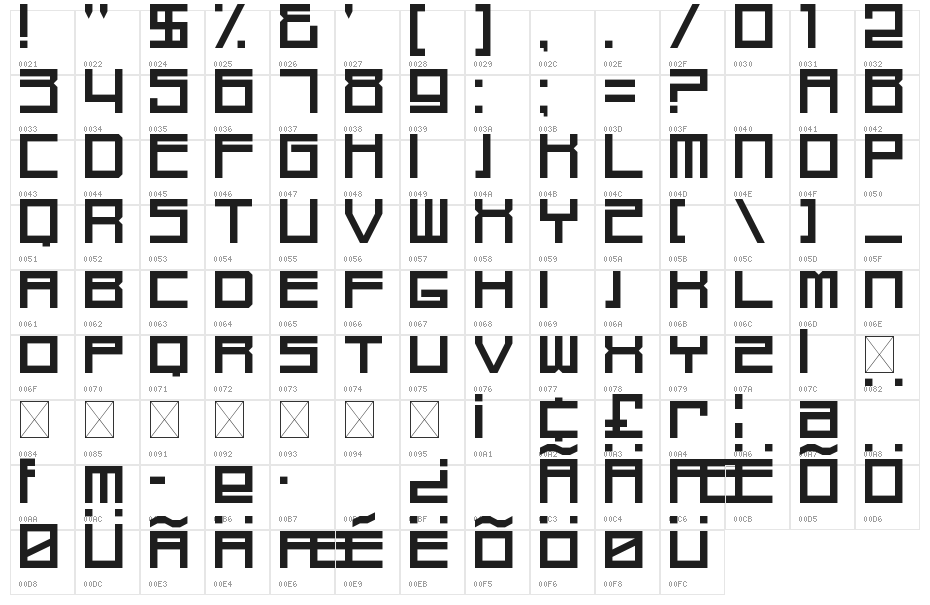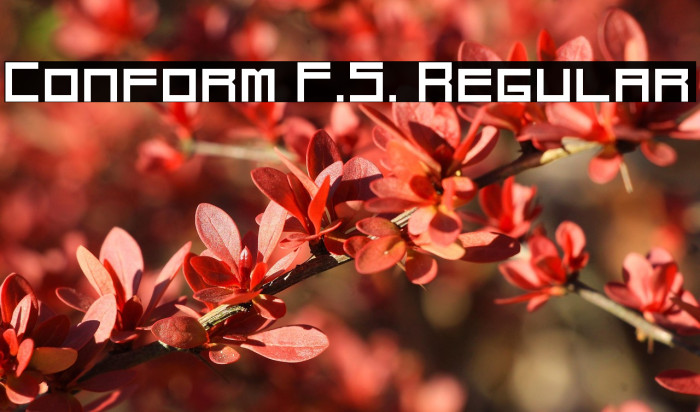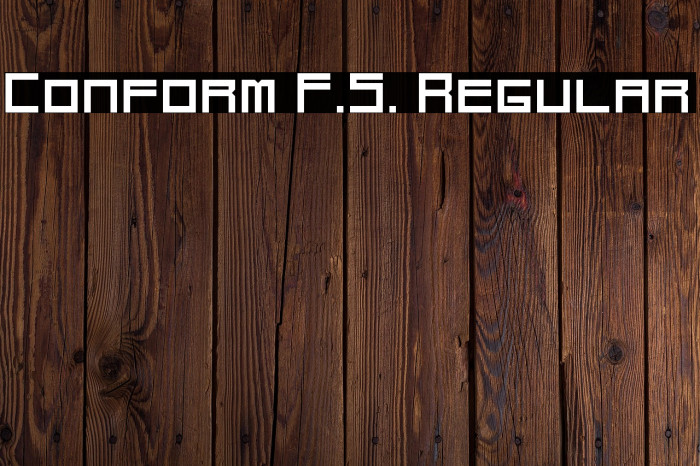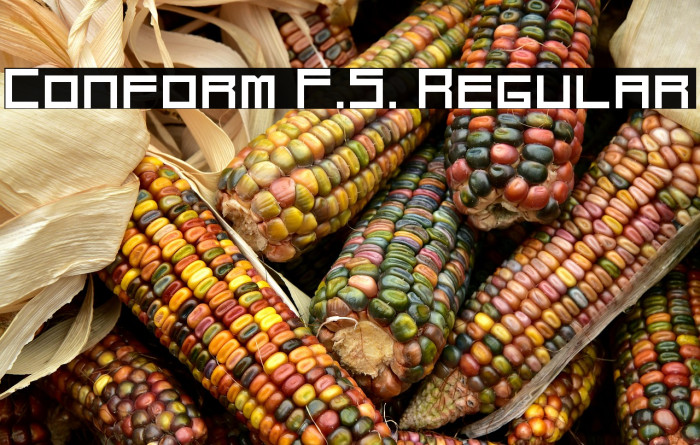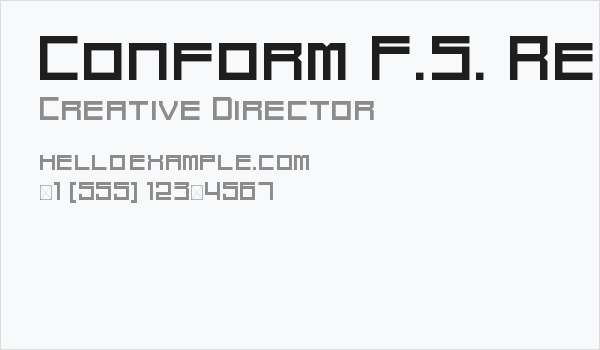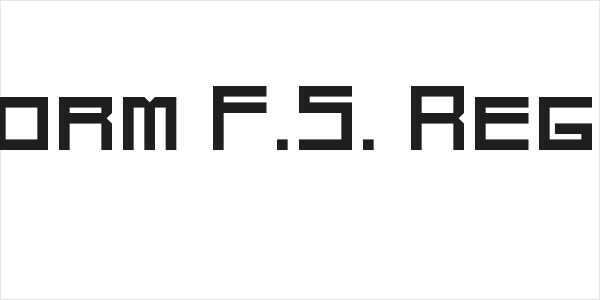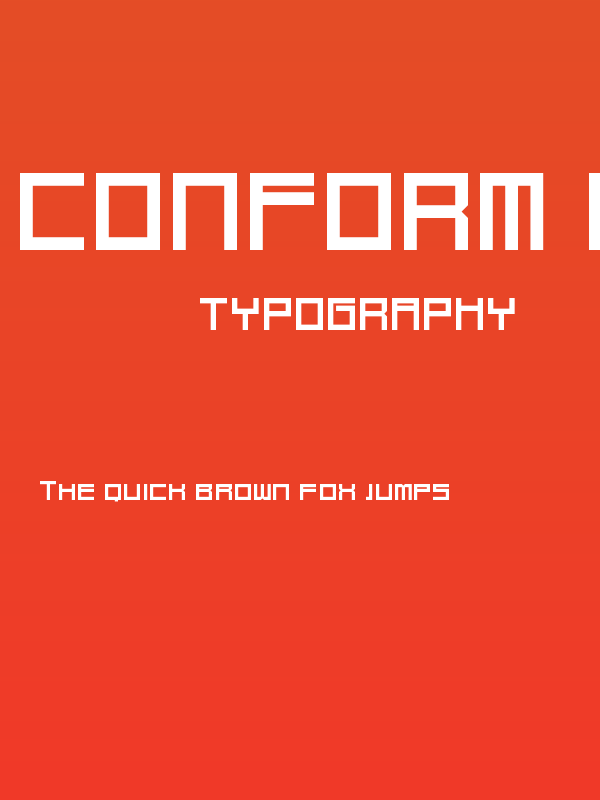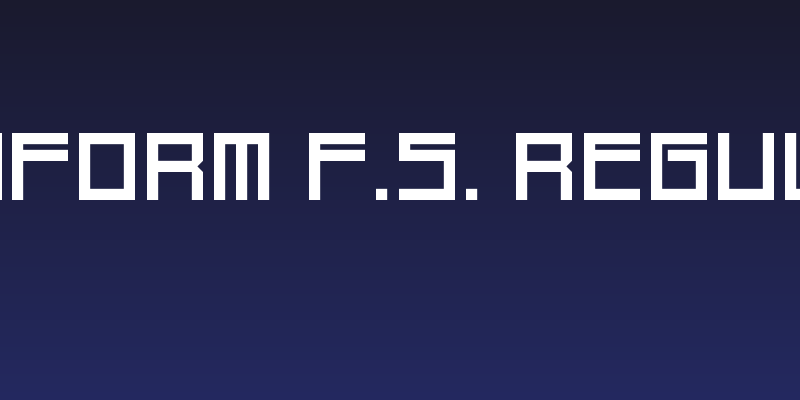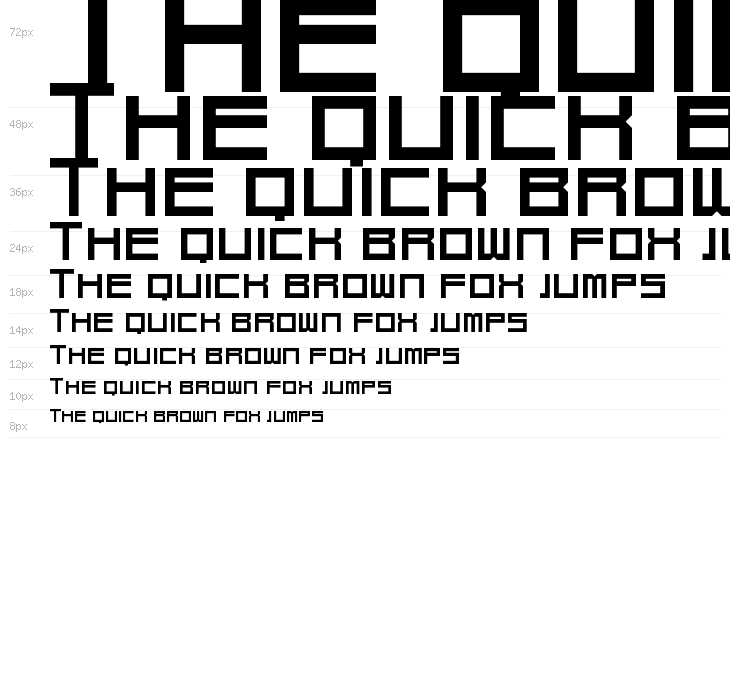
Conform F.S. Regular Font
Conform F.S. Regular Description
This font exhibits a bold, geometric style with a strong emphasis on angular shapes and straight lines. The characters are constructed with a uniform stroke width, giving it a monospaced appearance. The design is modern and futuristic, with a distinct blocky aesthetic that makes it stand out. The uppercase and lowercase letters maintain a consistent height, contributing to a cohesive look. The numerals and special characters follow the same design principles, ensuring uniformity across all glyphs. This font is ideal for projects that require a bold and assertive visual impact.
Overall StyleModern
Use CaseLogos, Headlines
Proposed ProjectsIdeal for technology branding, video game interfaces, and futuristic designs.